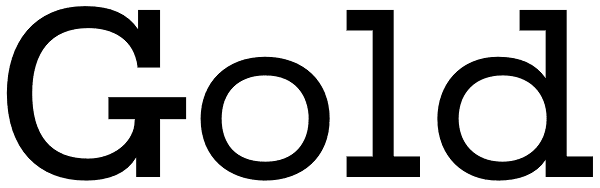
Gold
Gold is a new slab serif font family packed with many alternates giving you more options to choose from including small caps, stacked fractions, ligatures, stylistic alternates and swash letters. With 14 weights in the Gold family it's the perfect...